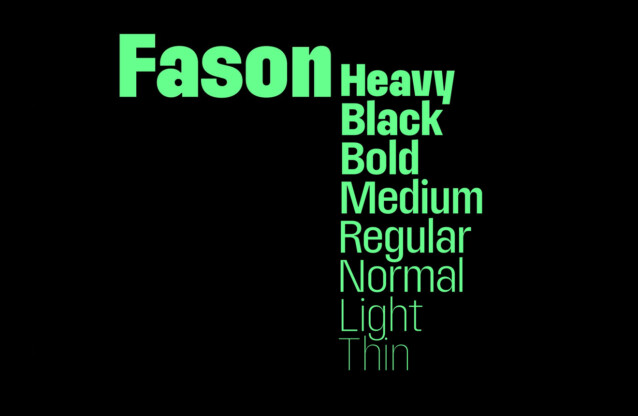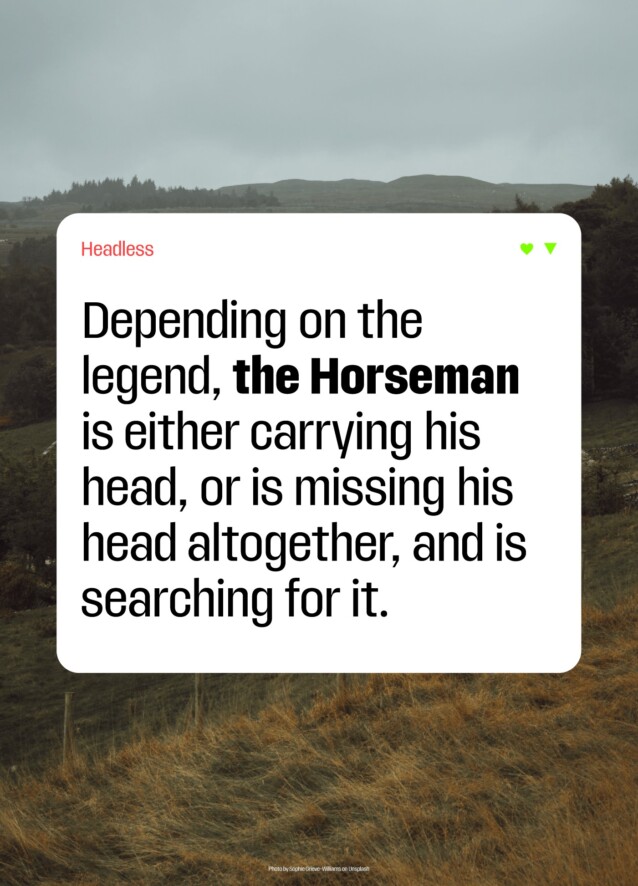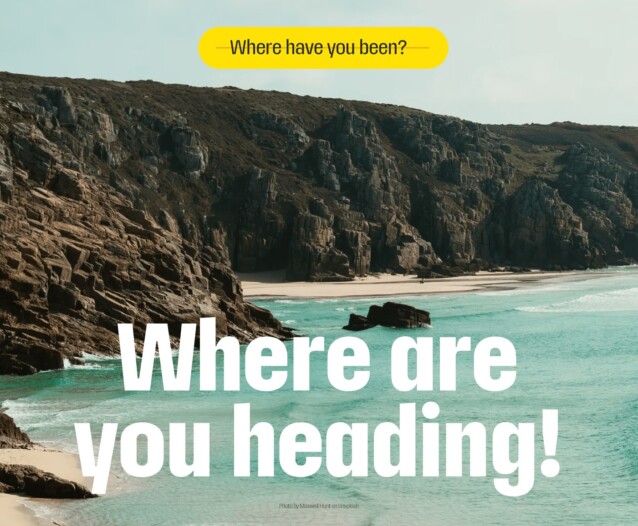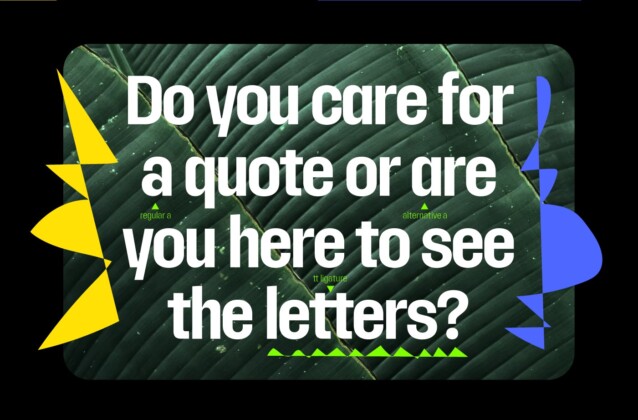
Fason Font Family is a bold and authentic display font family. The technological feeling might be suitable for the design of digital visuals as well as printed media. A rather small width of letters supports typesetting large paragraphs and headlines, while ink traps add to the technological feeling as well as support the legibility of characters.